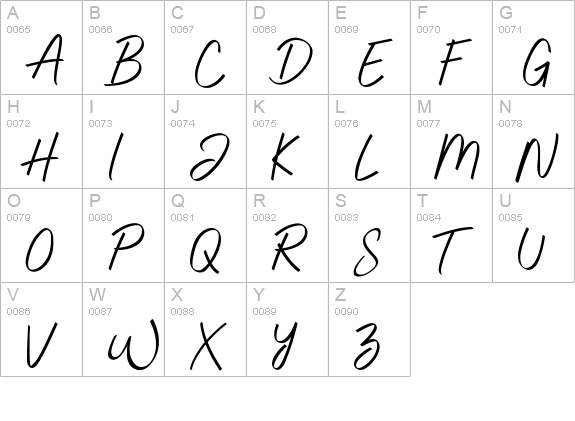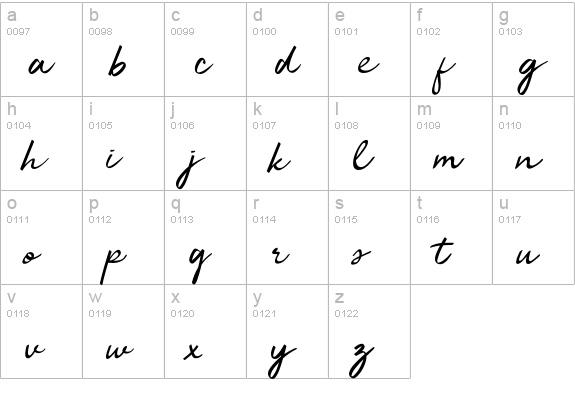
Jelytta Font Details
Jelytta is a free for personal use font in the Script > Handwritten category, designed by creatypestudio. It has been downloaded 312 times and is available for Windows, Mac and Linux.
Introducing Jelytta font, a stunning and elegant typeface that exudes sophistication and charm. With its graceful curves and stylish letterforms, Jelytta is perfect for adding a touch of class to any design project. Whether you're creating invitations, logos, or branding materials, this font is sure to make a lasting impression.